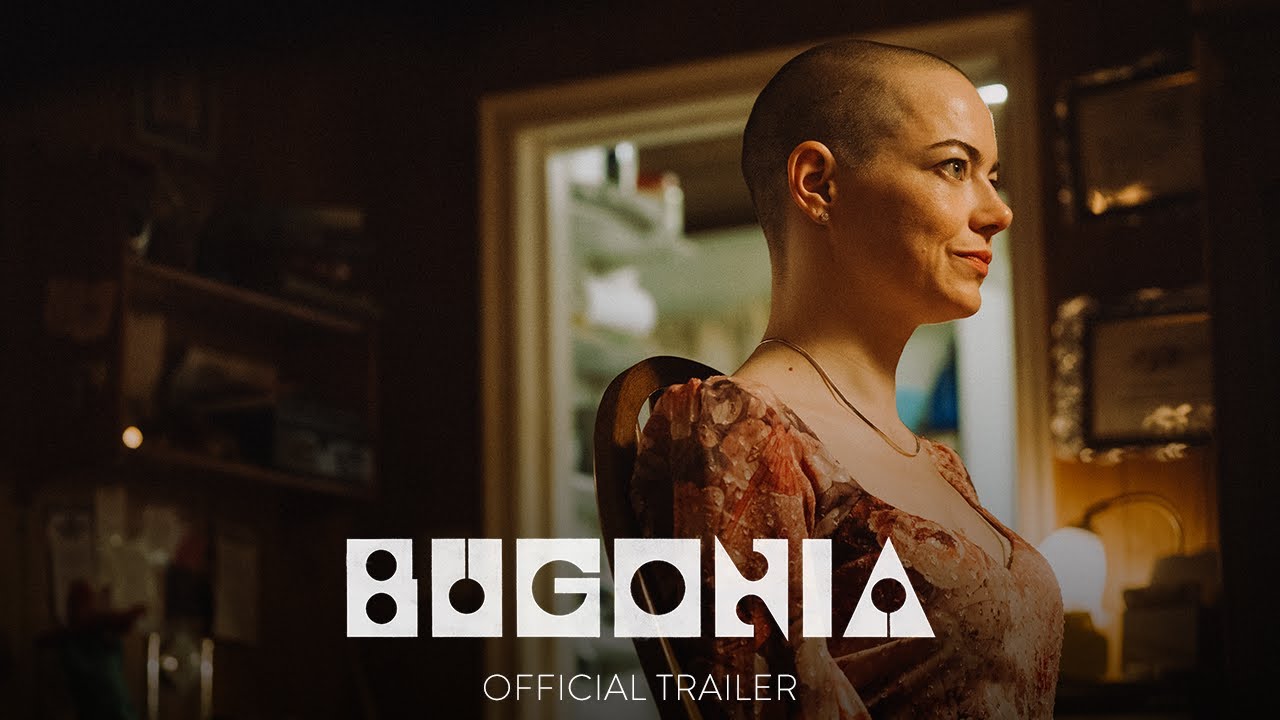
If you’ve ever watched a Yorgos Lanthimos film, you know what you’re in for: black comedy, absurdist drama, and visuals so meticulous they feel almost clinical. From the sterile environments of The Lobster to the Victorian grotesquery of Poor Things, Lanthimos uses every element on screen to build his unique, deeply unsettling worlds. But while film critics often focus on the direction and dialogue, we, as type geeks, know that the visual storytelling starts even before the first scene: with the title card. Or even further, by looking at the poster before the screening.
This is where Lanthimos truly excels. Unlike other projects where the typography is often just a little more than an afterthought, Lanthimos’s font choices are just as flamboyant and eccentric as his narratives. They are essential aesthetic components, designed not just to convey information but to immediately set an unsettling tone. Now, let’s dissect how this director and a trusted graphic genius that collaborates with him behind-the-scenes use mismatched fonts, exaggerated spacing, and old-school techniques to make us squirm in the best way possible.
Yorgos Lanthimos, a visual storyteller
Lanthimos’s cinematic style is defined by an uncompromising vision. His films are dark, original, and have achieved both critical acclaim and a cult following precisely because he pays meticulous attention to aesthetic details. Beyond directing actors, he’s engineering a complete sensory experience.
This meticulousness extends far beyond the cinematography and costume design. Lanthimos has historically been involved in every aspect of the film’s visual identity, including the promotional posters and the title sequences. It’s this active fight for unconventional choices that empowers his collaborators to be equally bold. If the poster design for The Killing of a Sacred Deer felt really eerie, that was entirely intentional. And endorsed by the director. But he’s not alone in this craft.
Vasilis Marmatakis: Traditional genius and collaborator
The man responsible for translating Lanthimos’s bizarre genius into graphic form is Vasilis Marmatakis, his long-time creative partner since Dogtooth in 2009. Marmatakis’s work is the connective tissue between the films, creating eye-catching imagery that compels viewers to fill in the metaphorical blanks. He views the poster, and by extension the type, as the entry to the film, creating the necessary mind-frame for the audience.
What makes Marmatakis very distinctive among his current peers is his analogue approach, working against the grain. According to an interview with It’s Nice That, he’ll design type blocks on the computer, print them out, and then manually smudge the edges with a water brush before scanning them back in. This DIY process leaves the letters slightly imperfect, wobbly, and alive, matching the rough, human texture of Lanthimos’s stories. It’s a gorgeous commitment to tactile design in a digital world.
Typefaces from Dogtooth to Poor Things
In the right hands, a movie can transform into a playground for typography. For Dogtooth (2009), the design was relatively simple: a standard serif in the original Greek poster, Times New Roman, but it was immediately accompanied by colored lines that shaped a waveform diagram, hinting at the film’s distorted reality. For Alps (2011), they started with the use of Futura PT, a typeface made by Paratype, to contrast the uneasiness of the poster. Fast forward to The Lobster (2015), and the choice was the sleek, sans-serif Avenir Next, a 2004 relaunch made by Akira Kobayashi for Linotype of the 1988 original font Avenir made by Adrian Frutiger. The name Avenir translates to “future,” a sharp, slightly ironic choice for a dystopian story about mandatory coupledom, reflecting the film’s sterile, minimalist aesthetic.
Lanthimos and Marmatakis then started to deliberately break the rules. In The Killing of a Sacred Deer (2017), they used a mix of two different typefaces, Times Linotype for serif and Nexa, a geometric sans-serif, tossing in bold, italics, and exaggerated kerning to create a sense of unease. This can also be seen in The Favourite (2018), where they chose Village FB, a modern retelling of a serif made all the way back in 1903, but deliberately used exaggerated spacing and water-brush technique in the borders of the letters shown on screen to give the historical period piece a bizarre, modern tension. The eccentricity reached new heights in Poor Things (2023) with a thin, almost skeletal lettering style, also reminiscent of Kubrick’s Dr. Strangelove, that was so dynamic it actually began framing the images in the closing credits.
Bugonia: Yorgos and Vasilis new alien craft
The duo’s latest venture, Bugonia, continues their legacy of unearthing gems. For the title card, Marmatakis revived a geometric typeface called Churchward Roundsquare, created by the late Samoan New Zealand designer Joseph Churchward. Marmatakis tracked down the archetype in a museum archive, secured permission from the designer’s family, and digitized it.
The resulting aesthetic is mesmerizing. Marmatakis describes Roundsquare as “monumental yet sharp, even a little threatening,” feeling “futuristic, but in a very analogue way.” This contradiction perfectly mirrors the film’s themes of conspiracy, technology, and myth. The choice is also deeply poetic: Bugonia is named after an ancient myth about bees being spontaneously born from a dead ox. By resurrecting a typeface buried in an archive, Marmatakis performs his own creative Bugonia, showing that the most revolutionary designs often emerge from looking closely at the forgotten past.
Amigo, we hope that by reading all of this can get you inspired to pursue interesting ventures in your creative endeavors, as Yorgos and Vasilis process shows that you can use tradition and handcrafting to bend the rules and make something new and unnerving. Experimentation can always be found, even in places where you can think at times that everything is done so far, like film and typography, and that’s why you can find beauty in the strange posters and letters in Yorgos’ movies. Keep going.